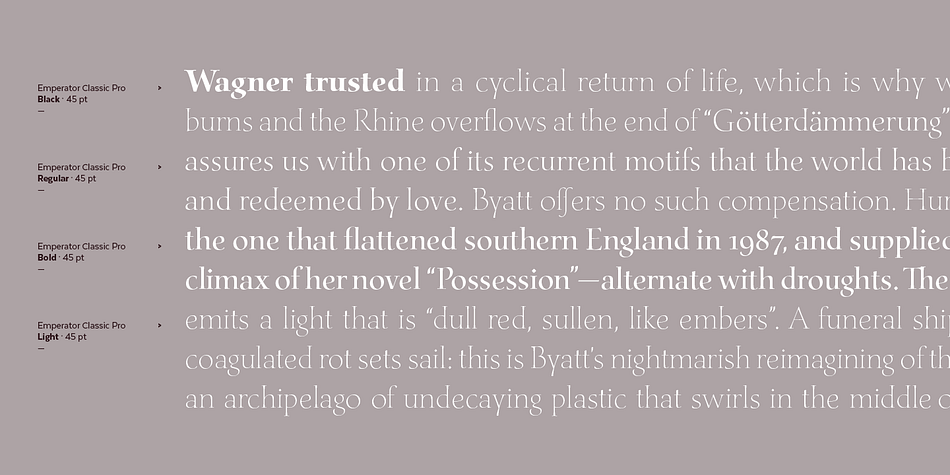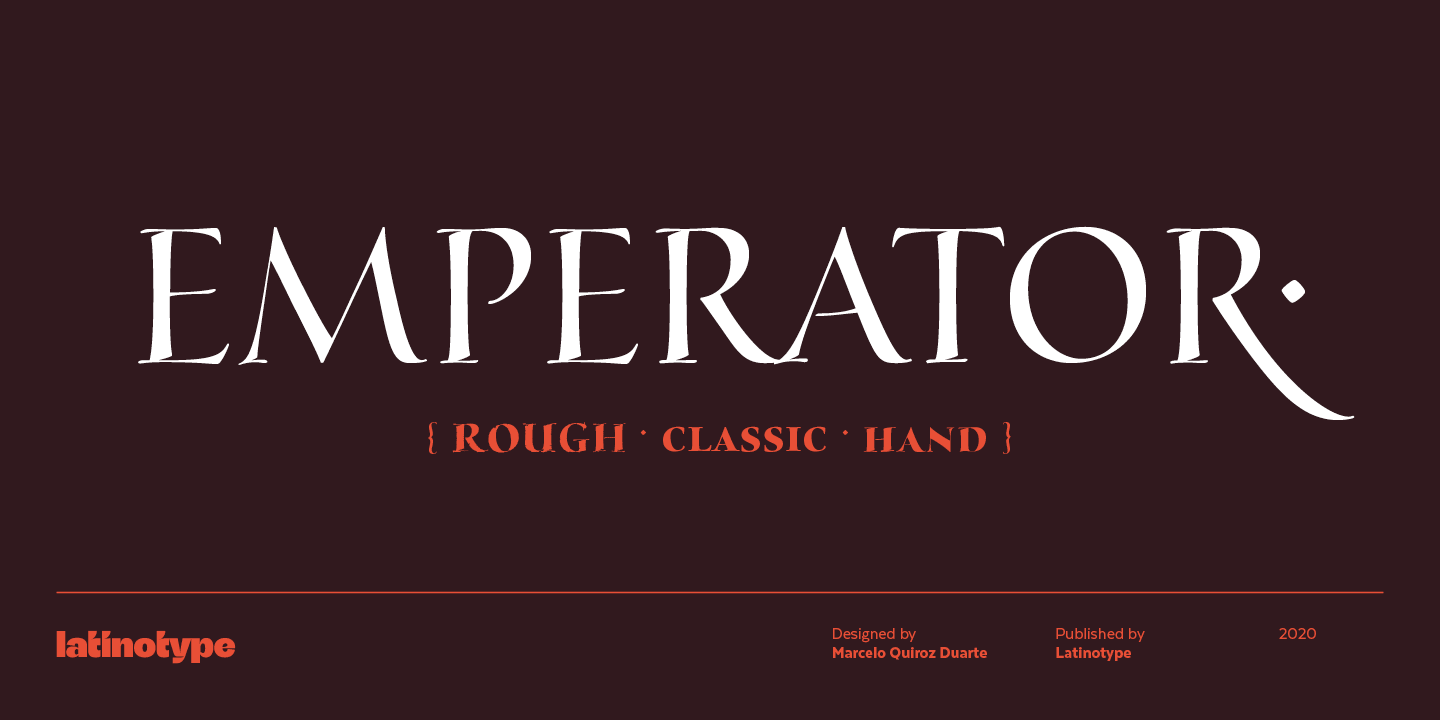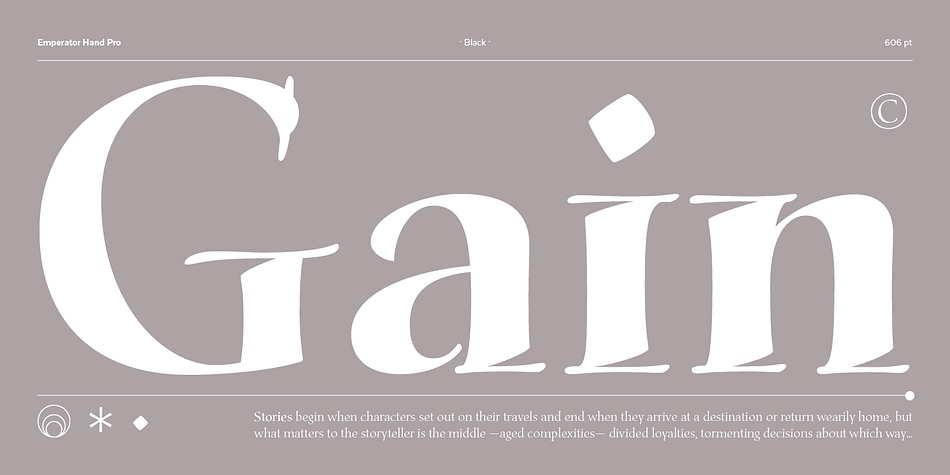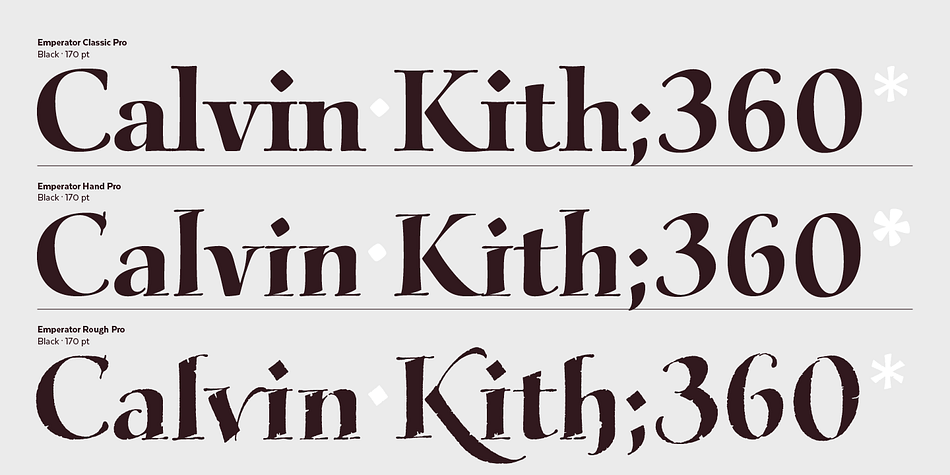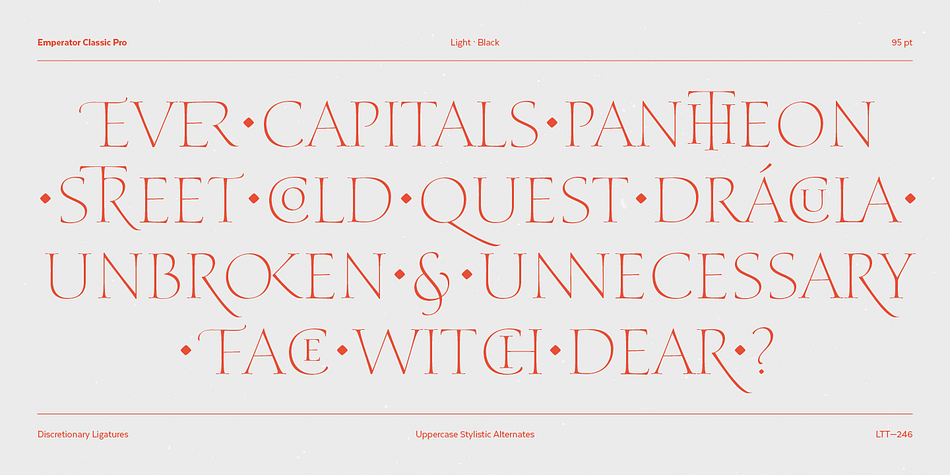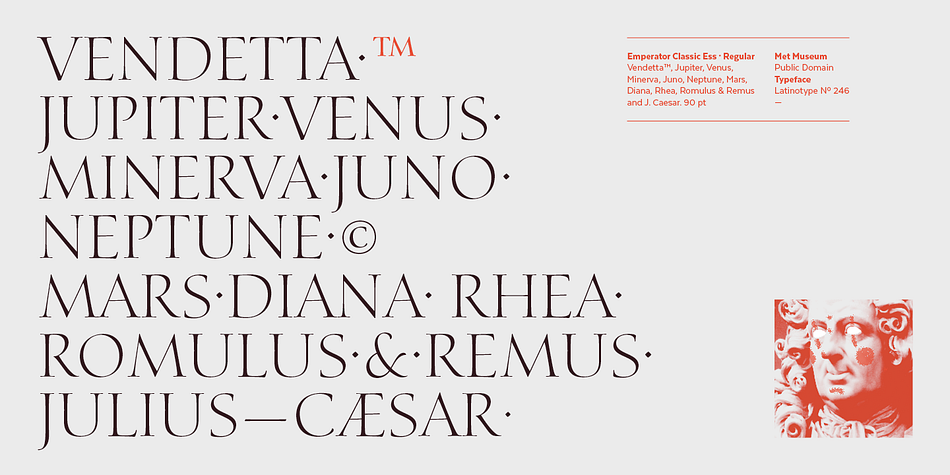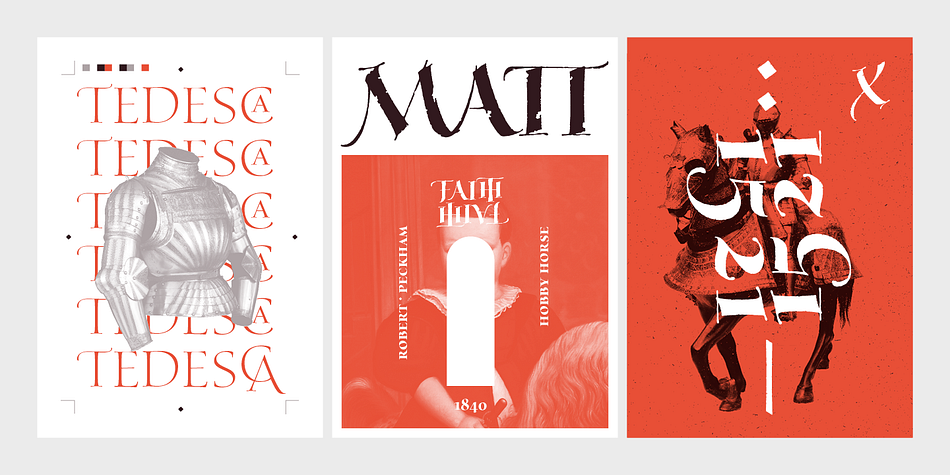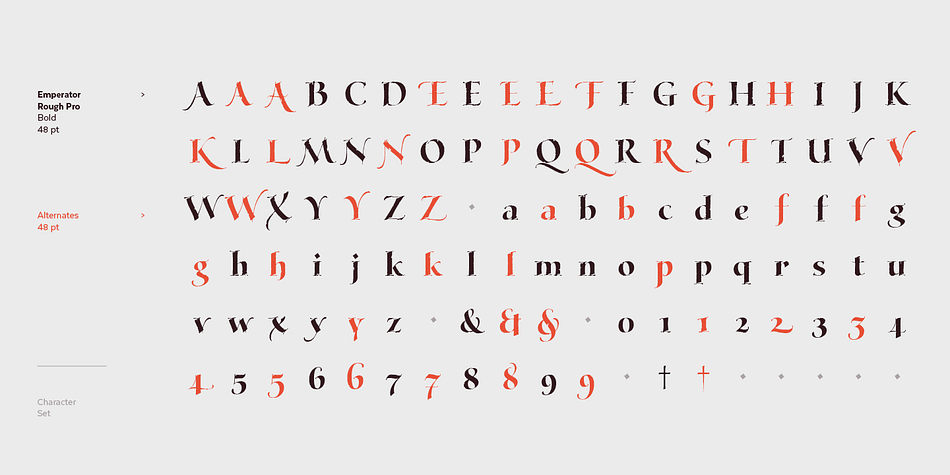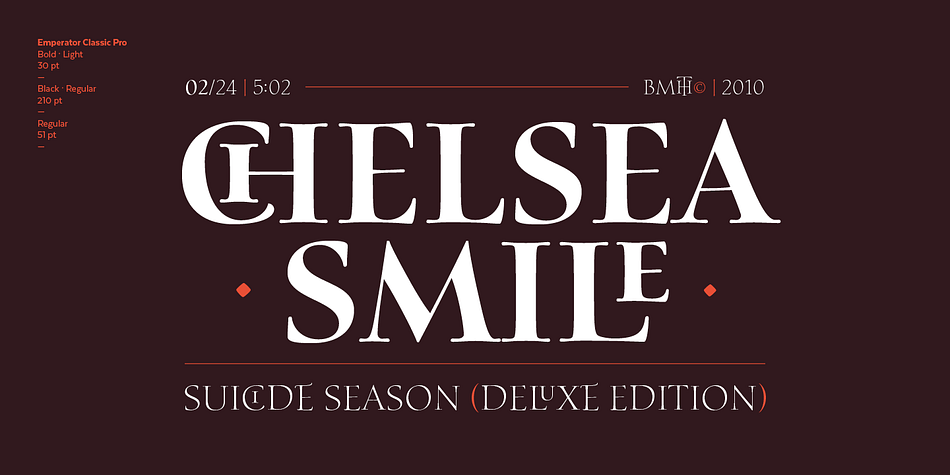
Designed by Marcelo Quiroz, Emperator is a display serif font family. This typeface has eighteen styles and was published by Latinotype.
Marcelo’s new typeface “Emperator” —based on his knowledge gained from instruction by master calligraphers— provides a fresh perspective on classic typefaces.
Emperator comes in 3 variants that make your designs look elegant, legible and expressive. This font is perfectly suitable for a wide range of applications such as titles, wedding invitations, short text, logos, labels, book covers, posters, packaging, etc.
Emperator’s character set includes small caps (letters, figures and symbols), fractions, stylistic alternates, ligatures, mathematical symbols, etc.— more than 750 glyphs in all, supporting over 200 Latin-based languages.